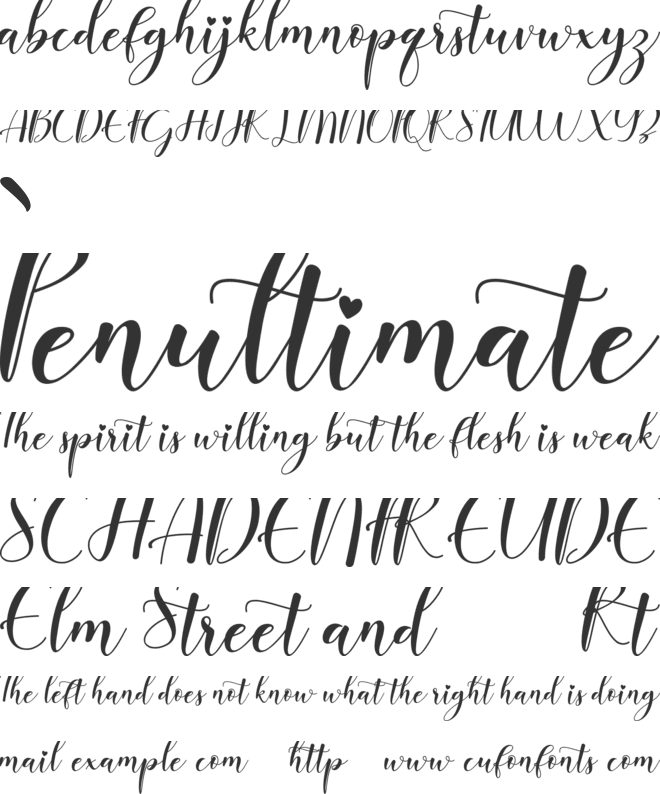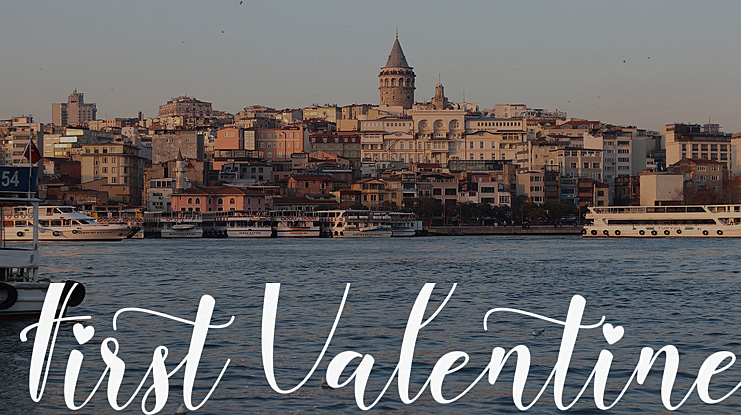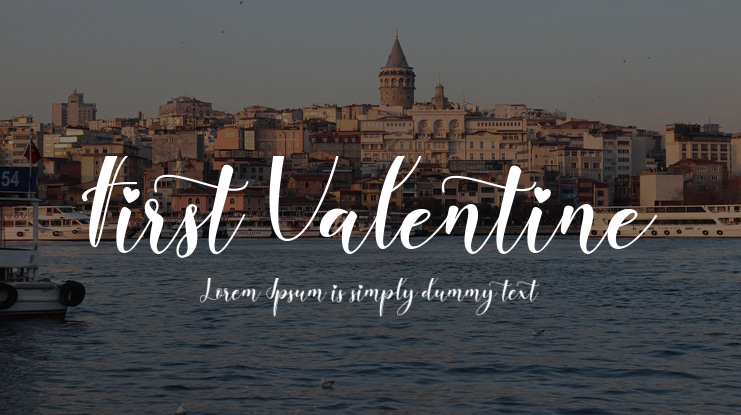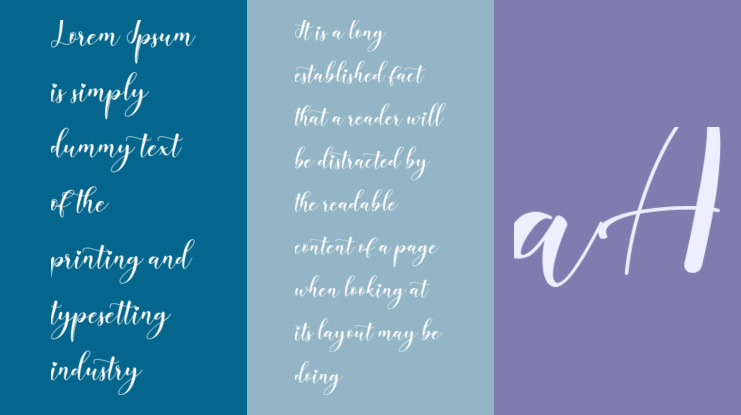
First Valentine Font
First Valentine is a romantic and sweet script font with characters that dance along the baseline. It will add a luxury spark to any design project that you wish to create! This font is PUA encoded, which means you can access all of the amazing glyphs and ligatures with ease!